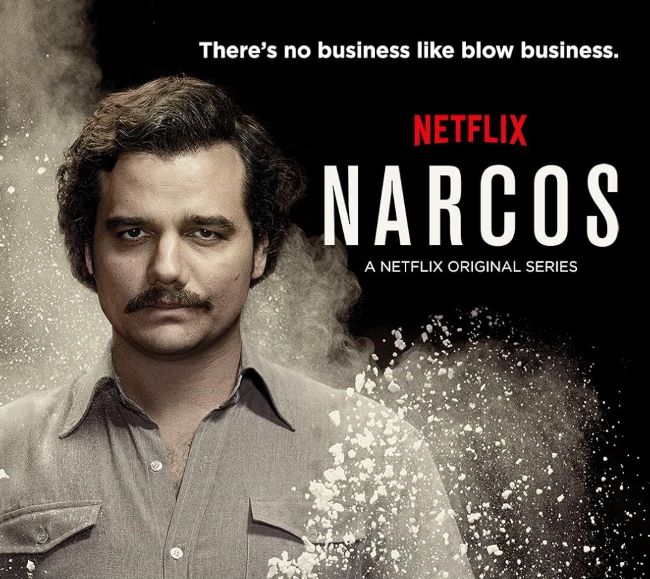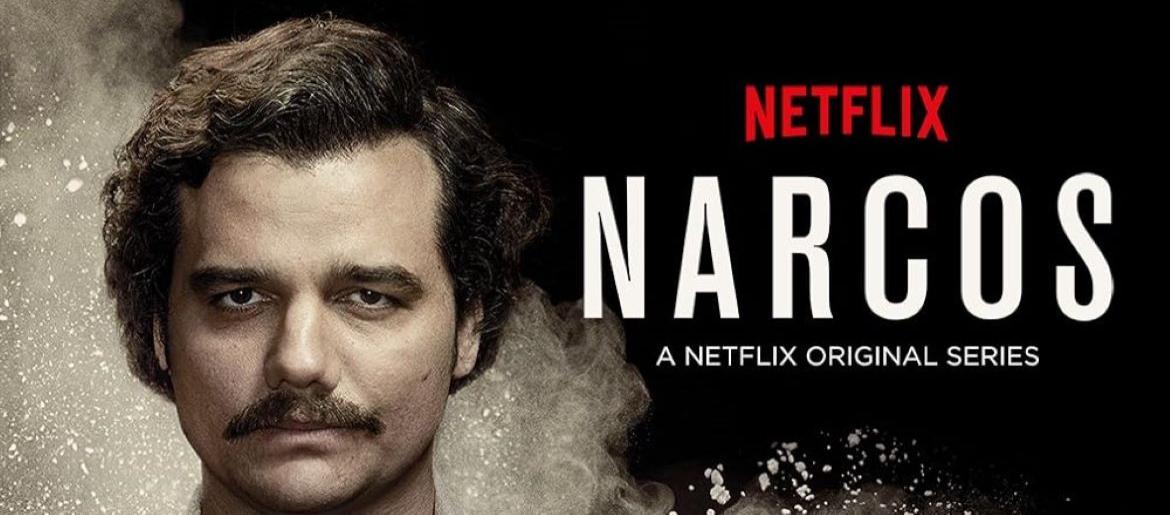
Narcos Font
The Narcos Font delivers an unmistakably raw and distressed aesthetic that instantly pulls you into the harsh world of 1980s Colombia. Its worn, gritty letterforms echo the tension, danger, and moral complexity at the heart of the series. The typography feels weathered by conflict — the perfect visual companion to a story filled with power struggles, corruption, and historical turmoil.
Every time the Narcos Font appears on screen, it reinforces the show’s raw authenticity and gritty narrative style. Its visual weight sets the tone instantly — hinting at danger, power, and an era shaped by shadowy alliances. You can also explore more free fonts in our collection.